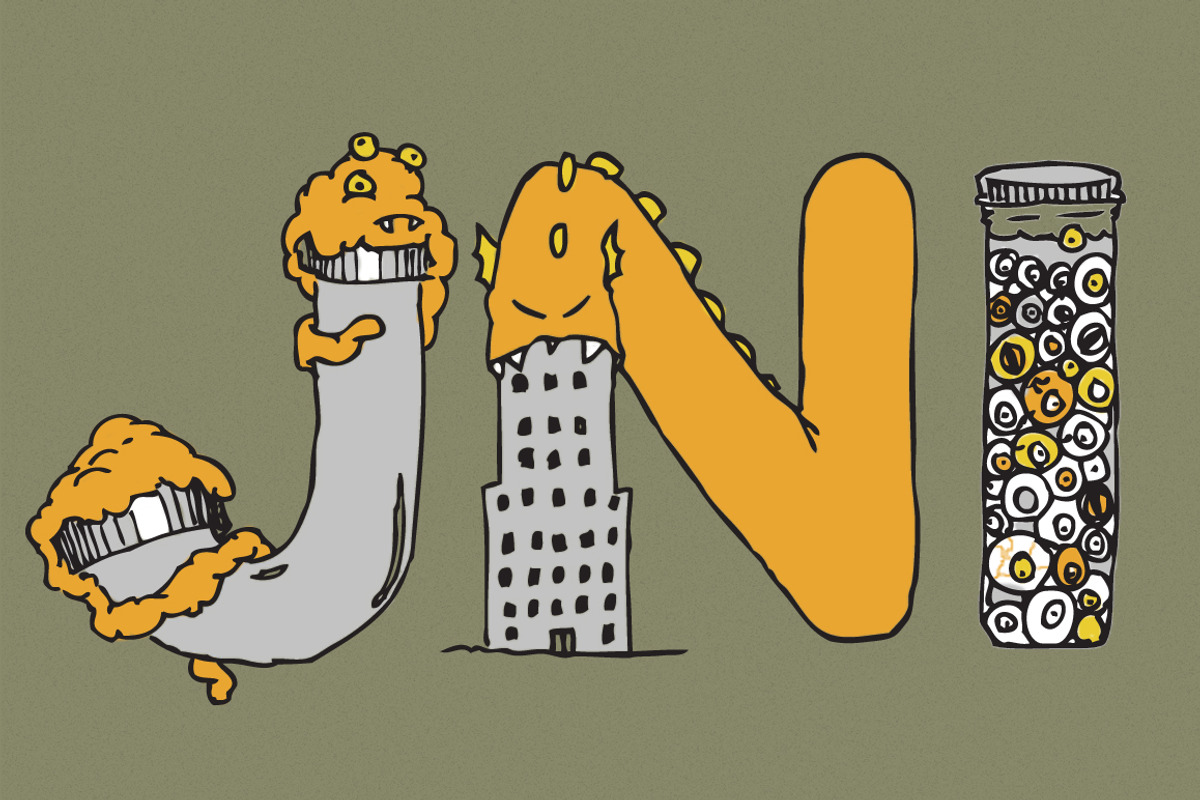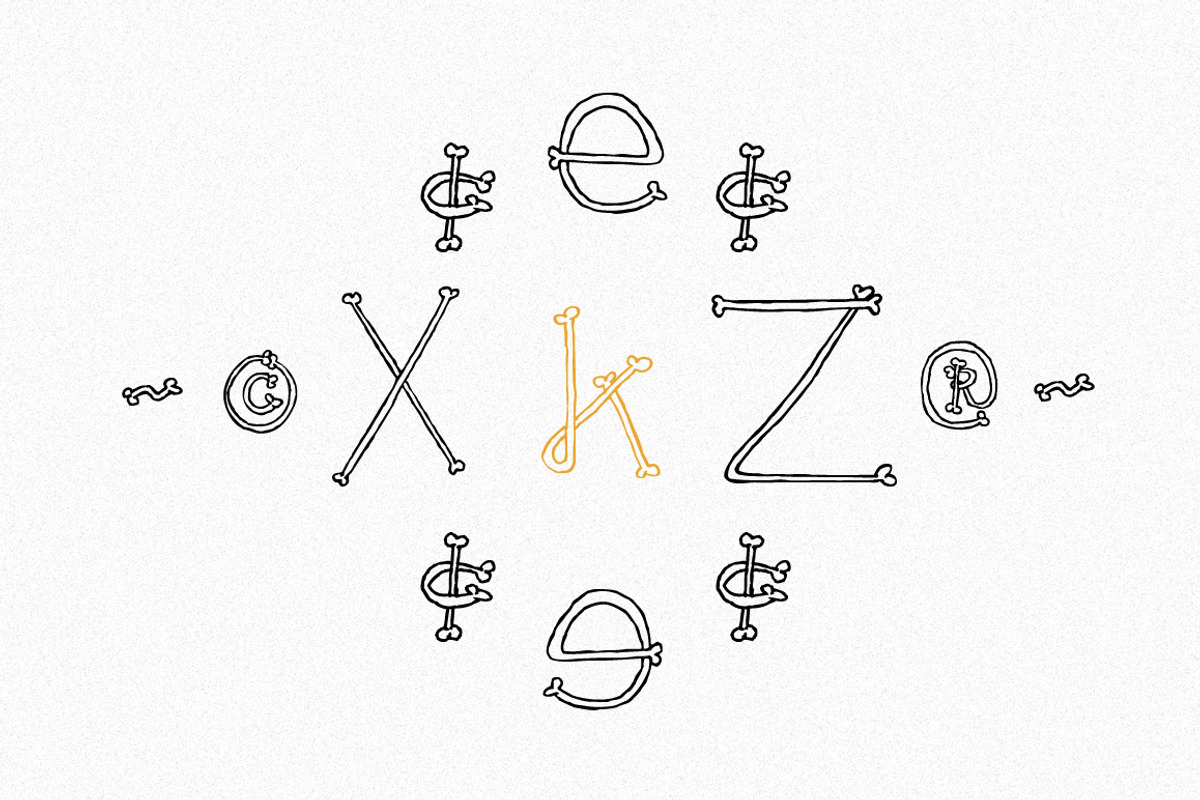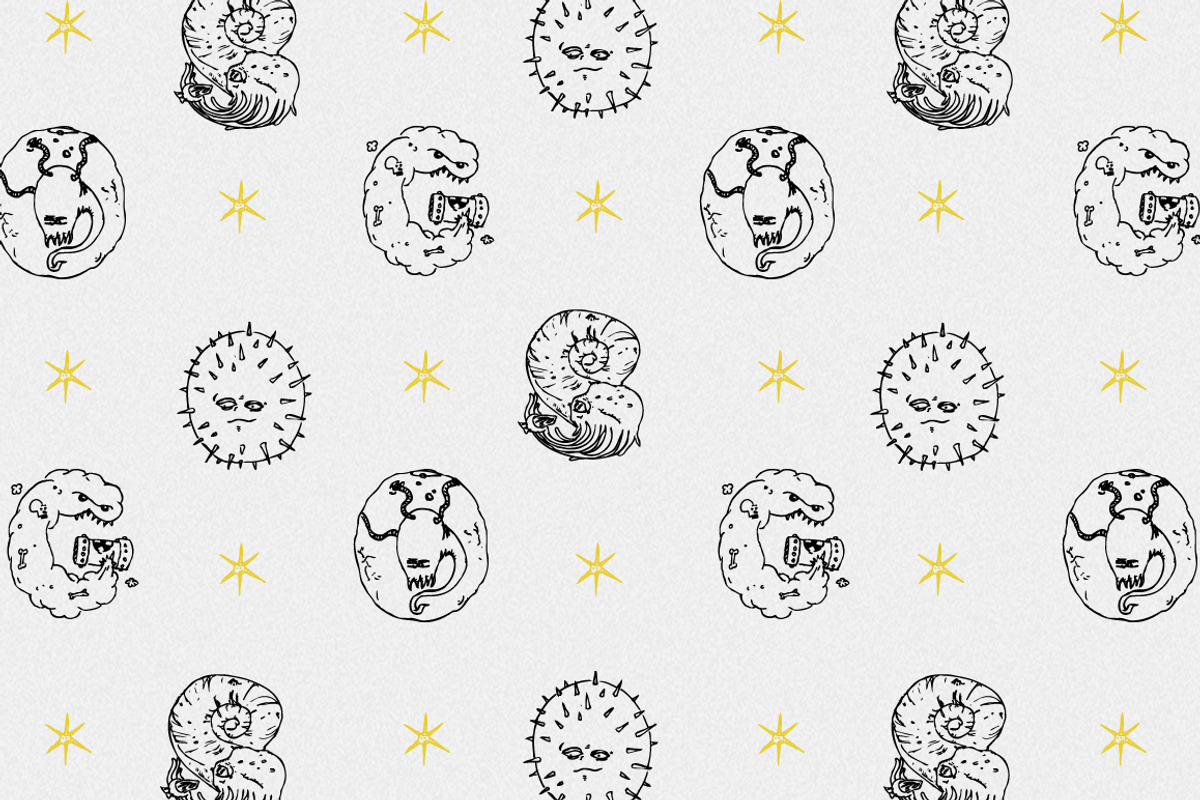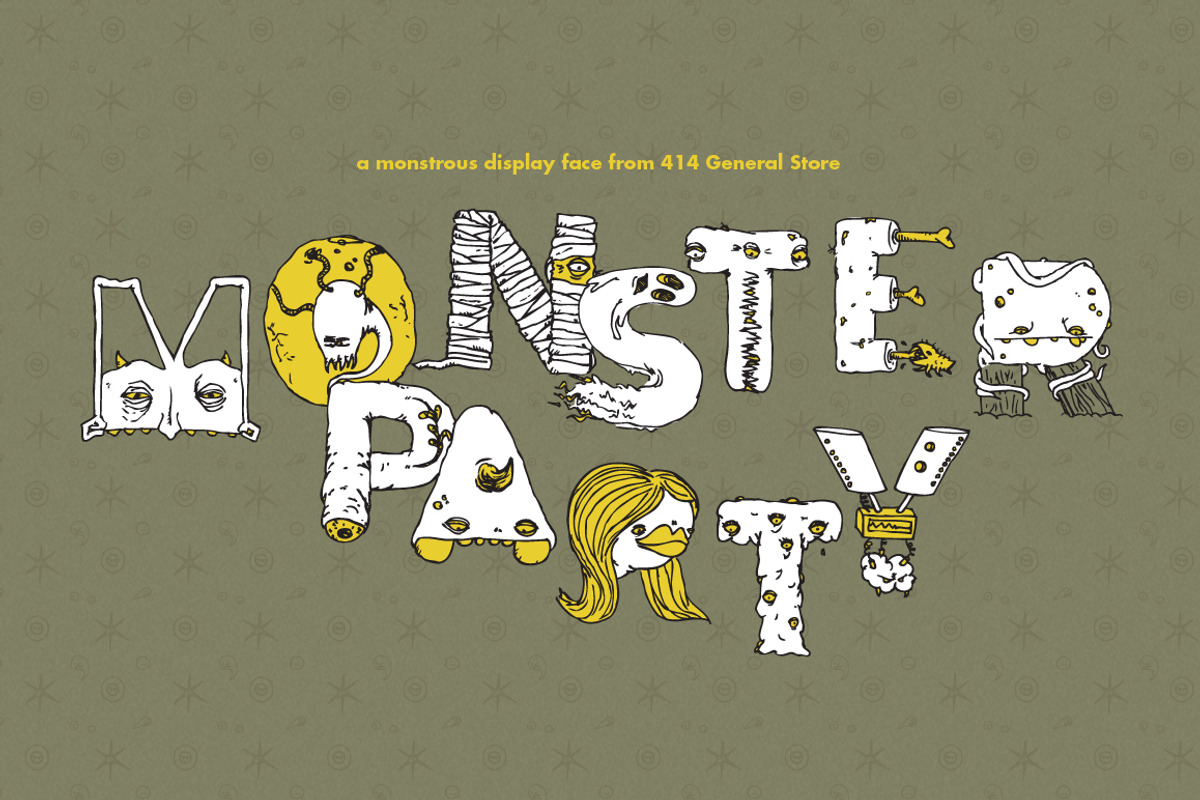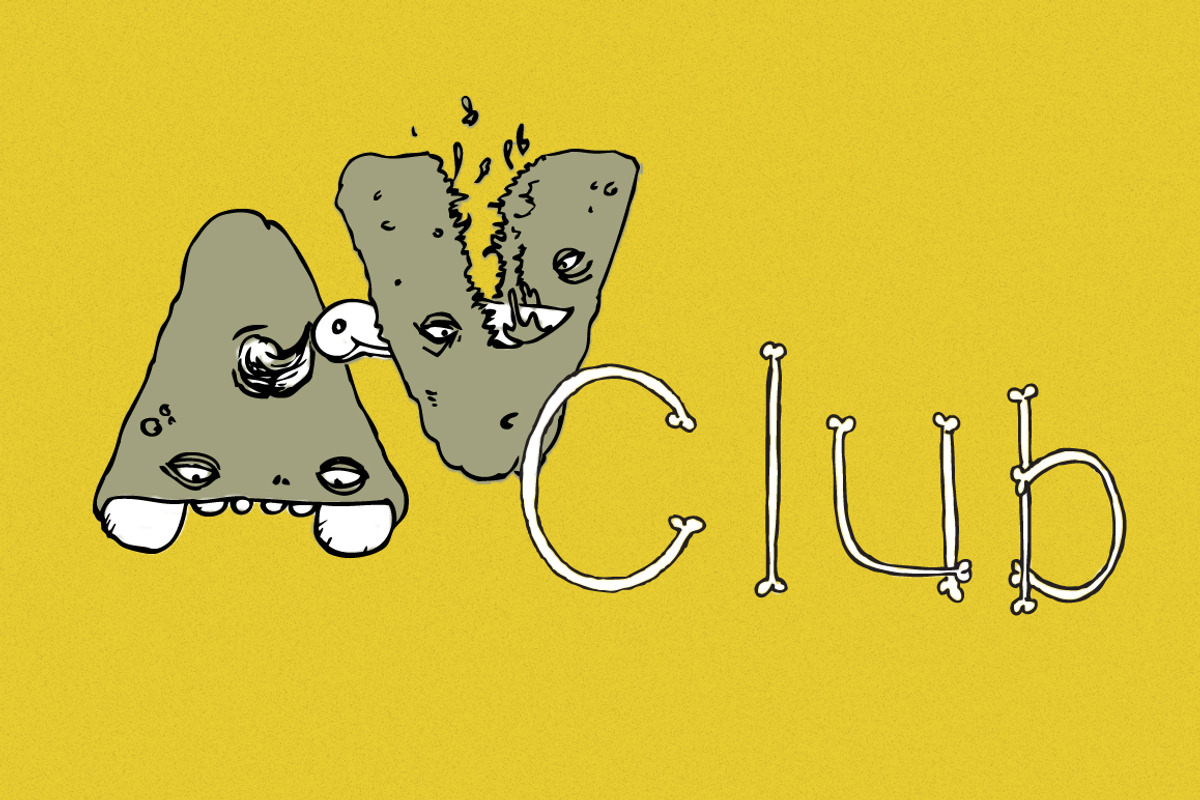
Monster Party - Typeface
Monster Party - Typeface by 414 General Store is a font selected for branding, posters, packaging, typography.
- Upper and lowercase sets include different characters for mixing & matching.
Monster Party - Typeface by 414 General Store fits naturally into Branding, posters, packaging, typography.